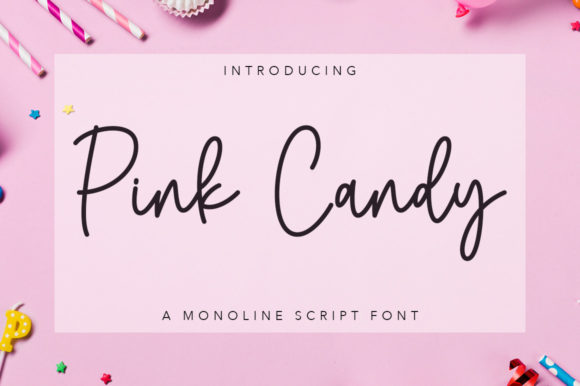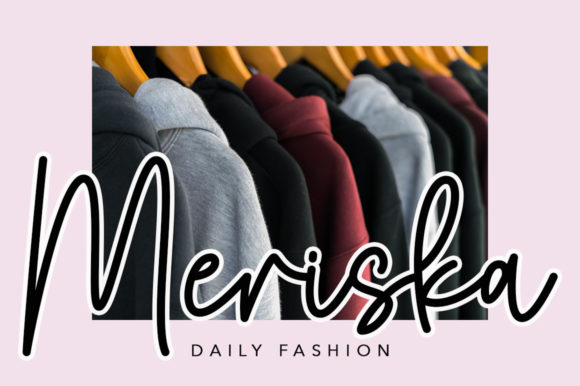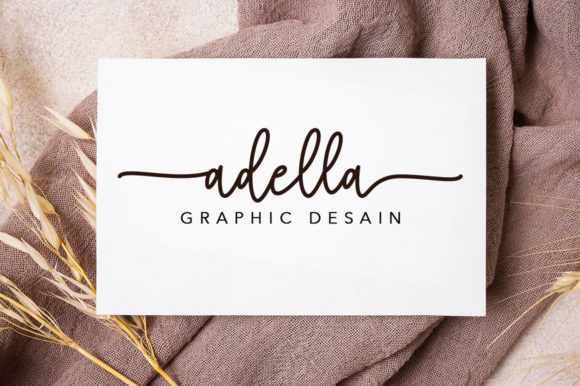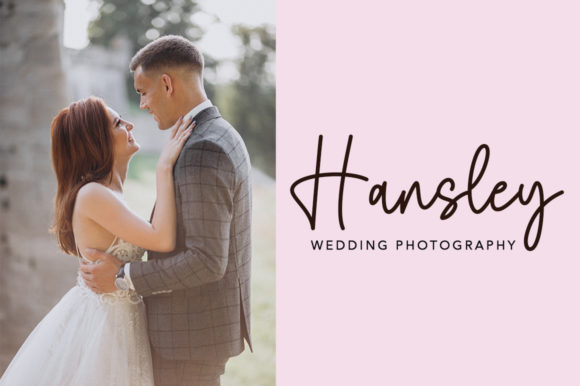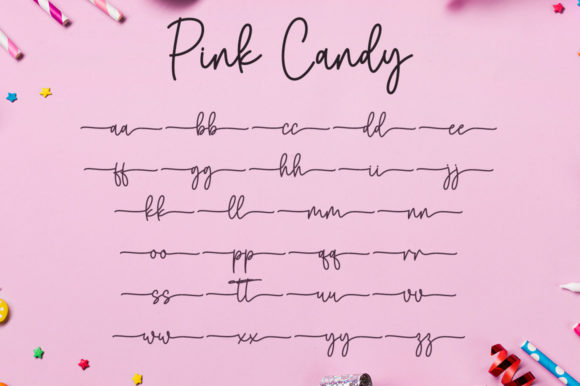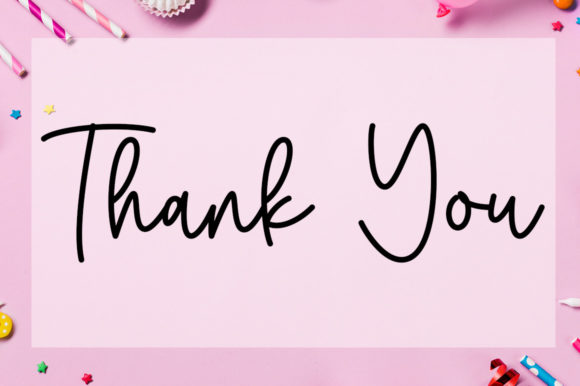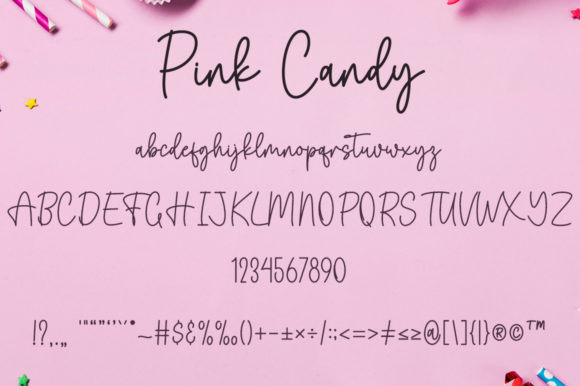
Pink Candy Font
About Pink Candy Font
“Pink Candy” is an elegant script font designed to add a touch of sophistication to your projects. With a balanced and varied style, this font strikes a harmonious balance—not too thin and not too thick—making it versatile for a range of creative applications. The font is meticulously crafted to enhance the beauty of your designs, and its PUA encoding ensures easy access to all glyphs and swashes for convenient customization.
The elegance of “Pink Candy” is evident in its smooth and flowing script, contributing to a refined and graceful appearance. This font is well-suited for projects that require a sophisticated and stylish touch, such as invitations, branding, and other design endeavors.
The balanced and varied nature of the font allows it to adapt seamlessly to different contexts, providing flexibility for a diverse range of creative applications. Whether used for logos, signage, or social media graphics, “Pink Candy” adds a touch of elegance that elevates the overall aesthetic of your projects.
The inclusion of PUA encoding enhances the user experience, allowing designers to access a variety of glyphs and swashes effortlessly. This functionality ensures that customization is not only straightforward but also offers creative possibilities for making your designs unique.
In summary, “Pink Candy” is more than just a font; it’s a design asset that brings elegance and sophistication to your creative projects. With its balanced and varied script, this font is a versatile choice for enhancing the beauty of your designs, ensuring a polished and refined visual experience.